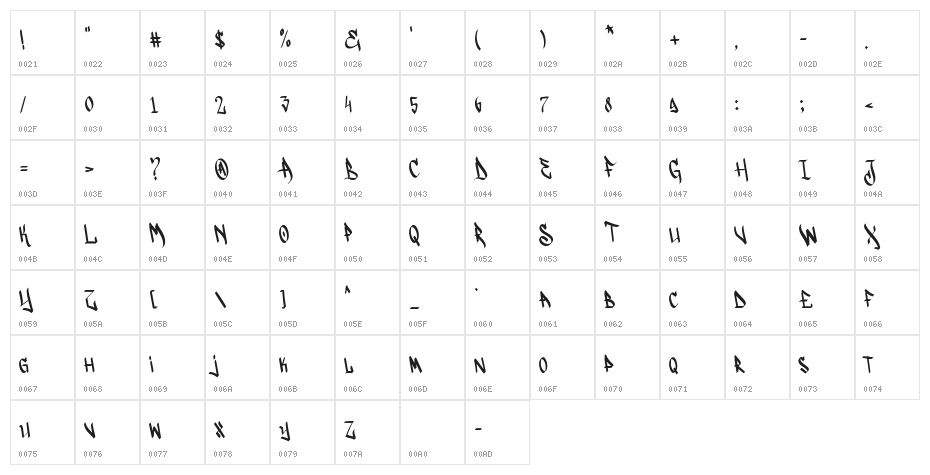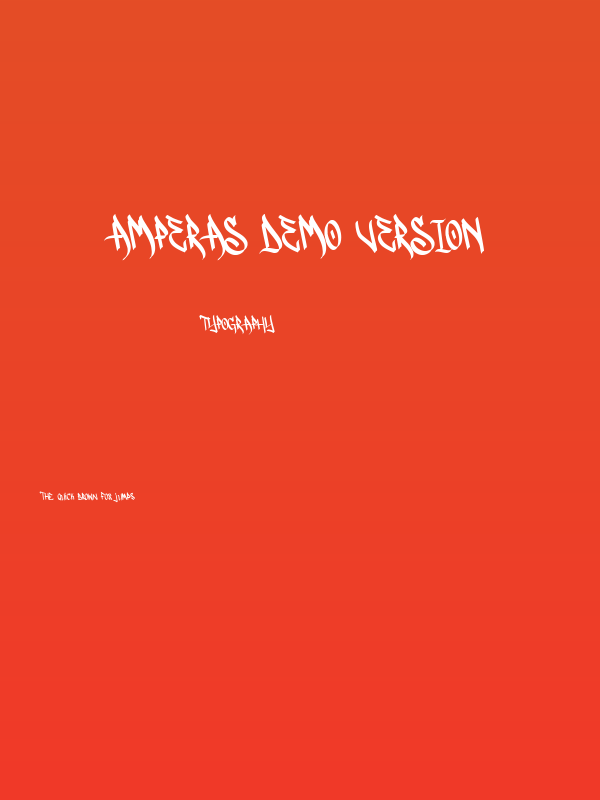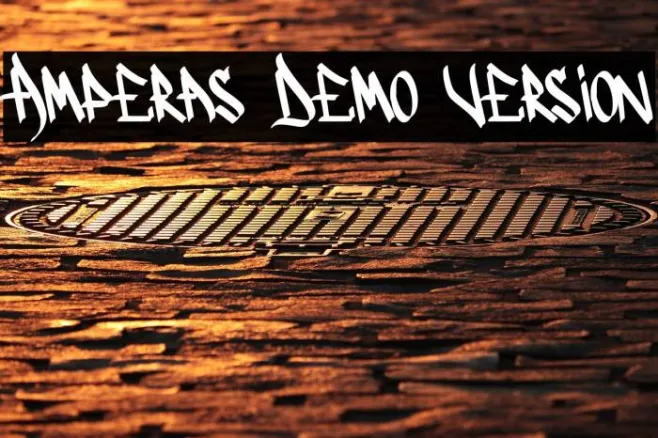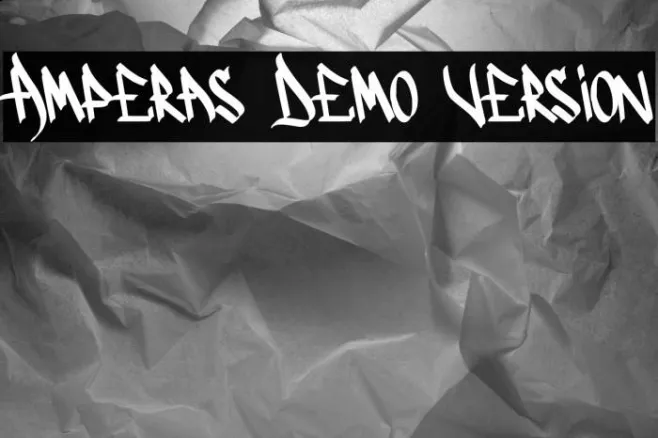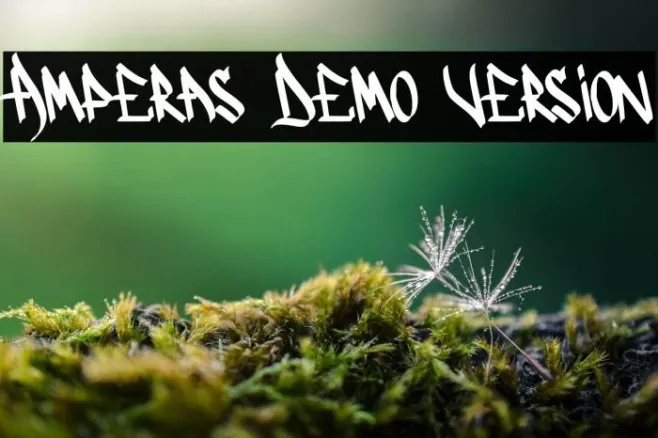
Amperas Demo Version Font
| Style général | Modern, Urban |
| Projets proposés | This font is perfect for streetwear branding, music album covers, urban art projects, and event posters that aim to capture a youthful and edgy vibe. |